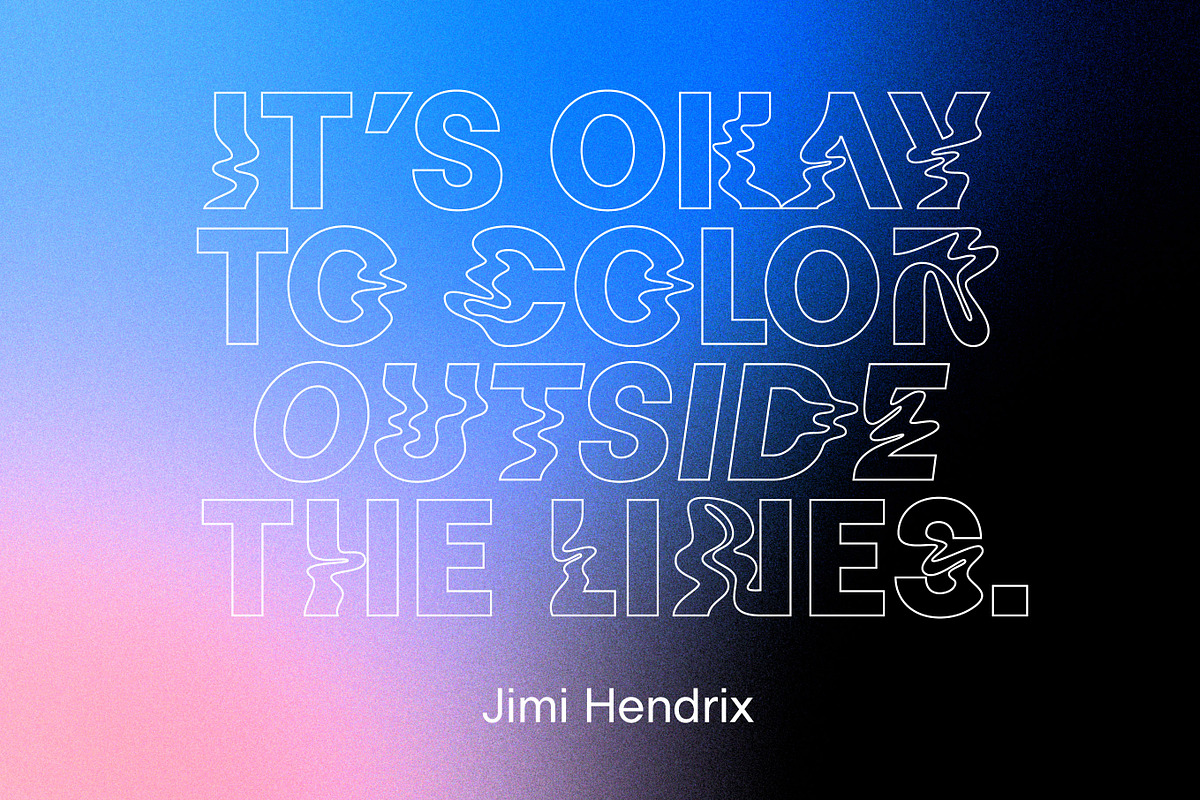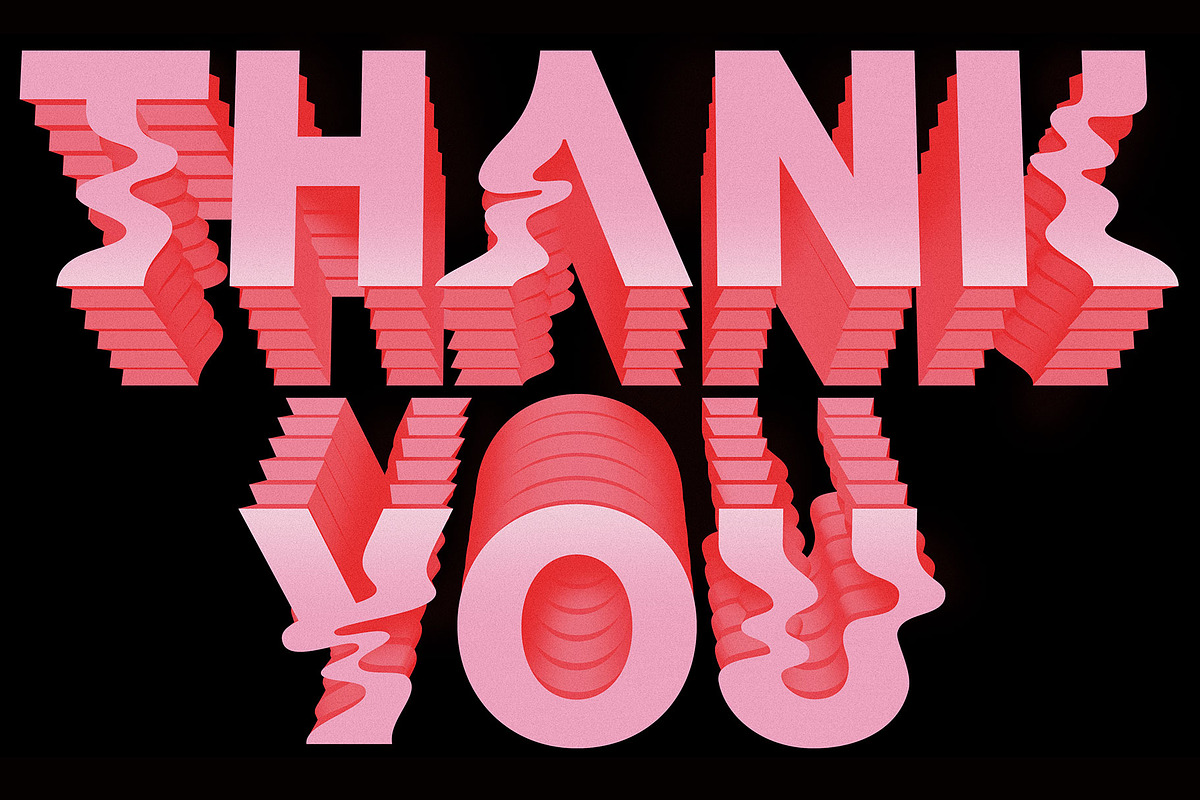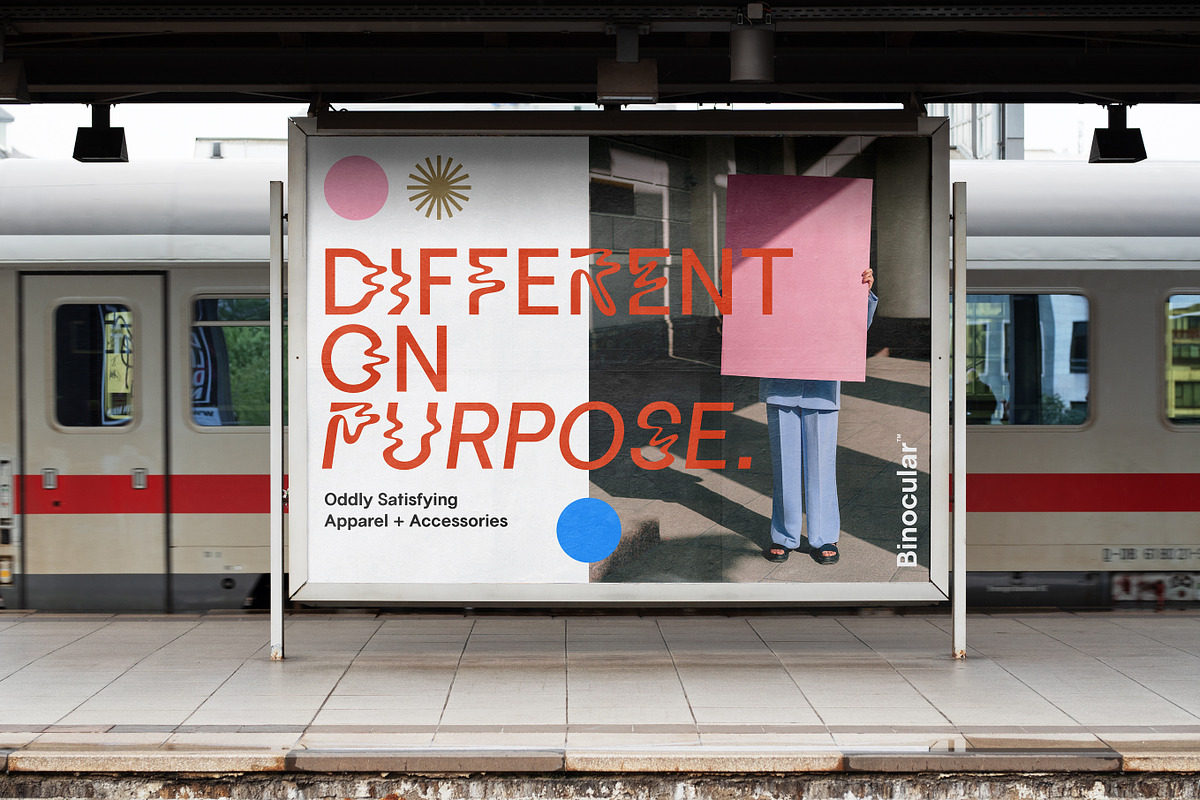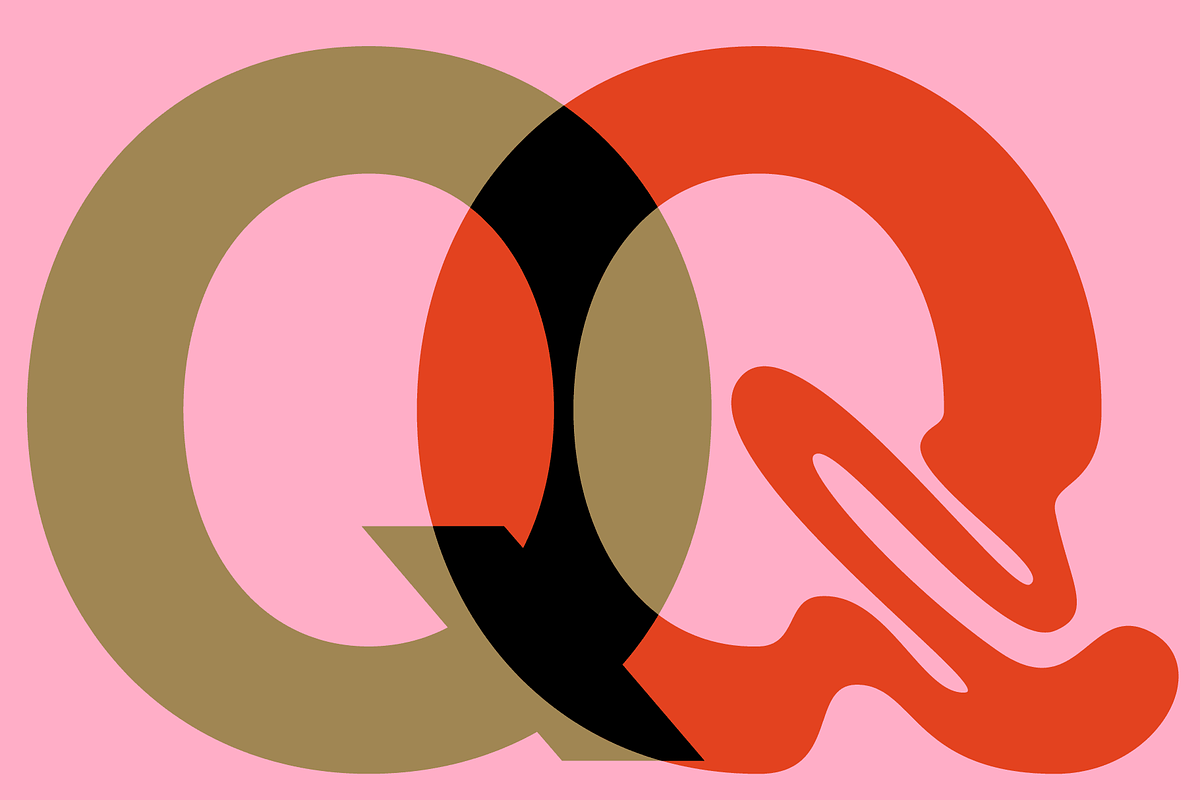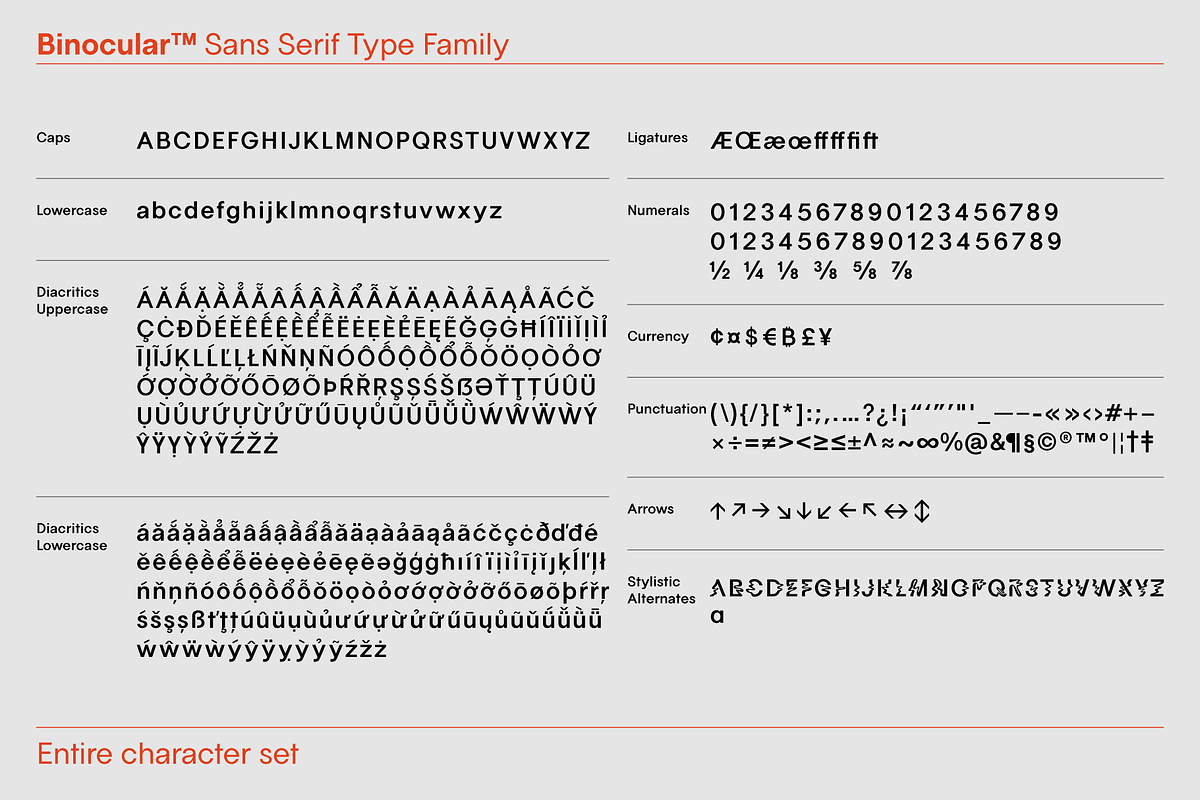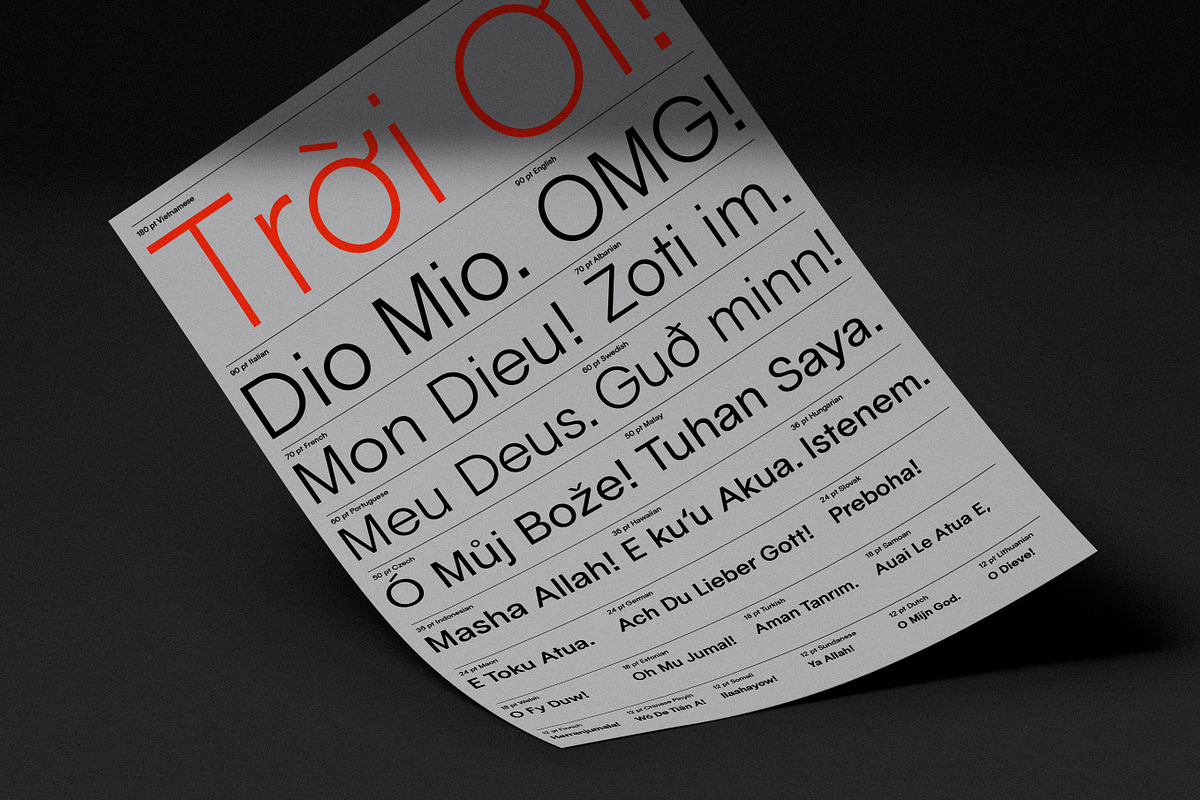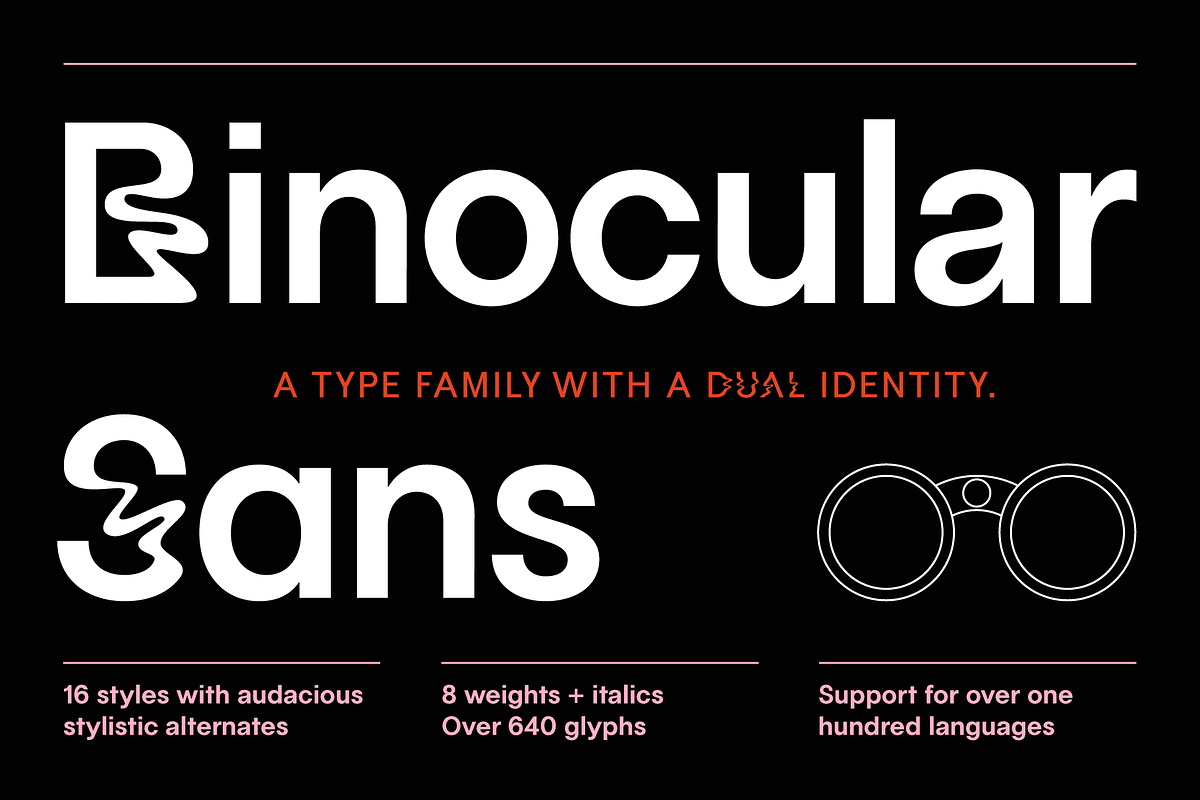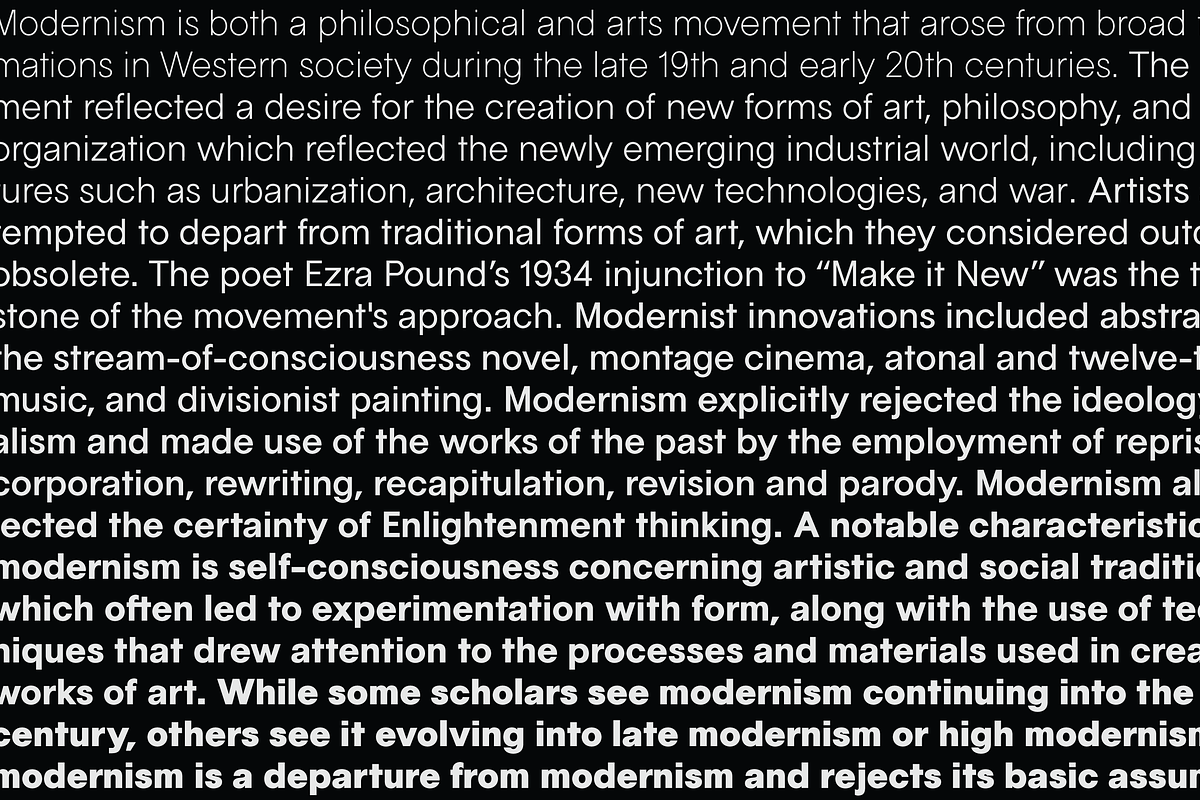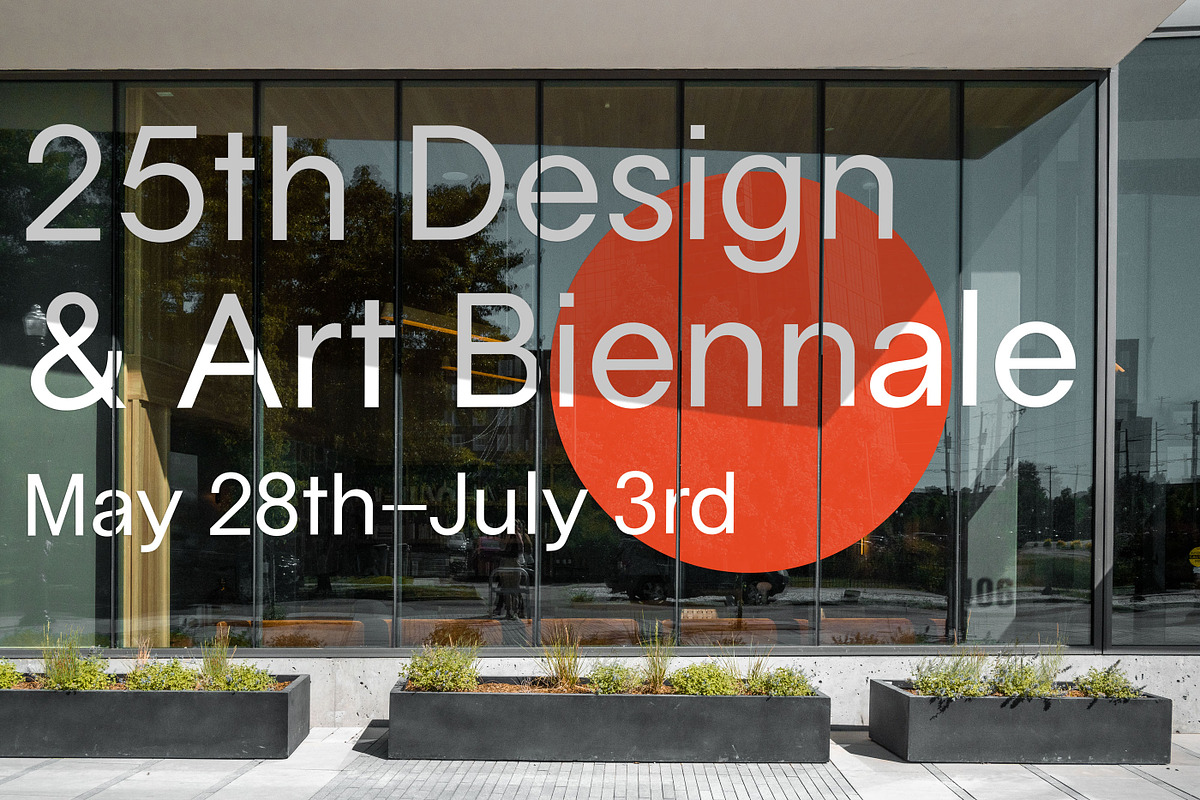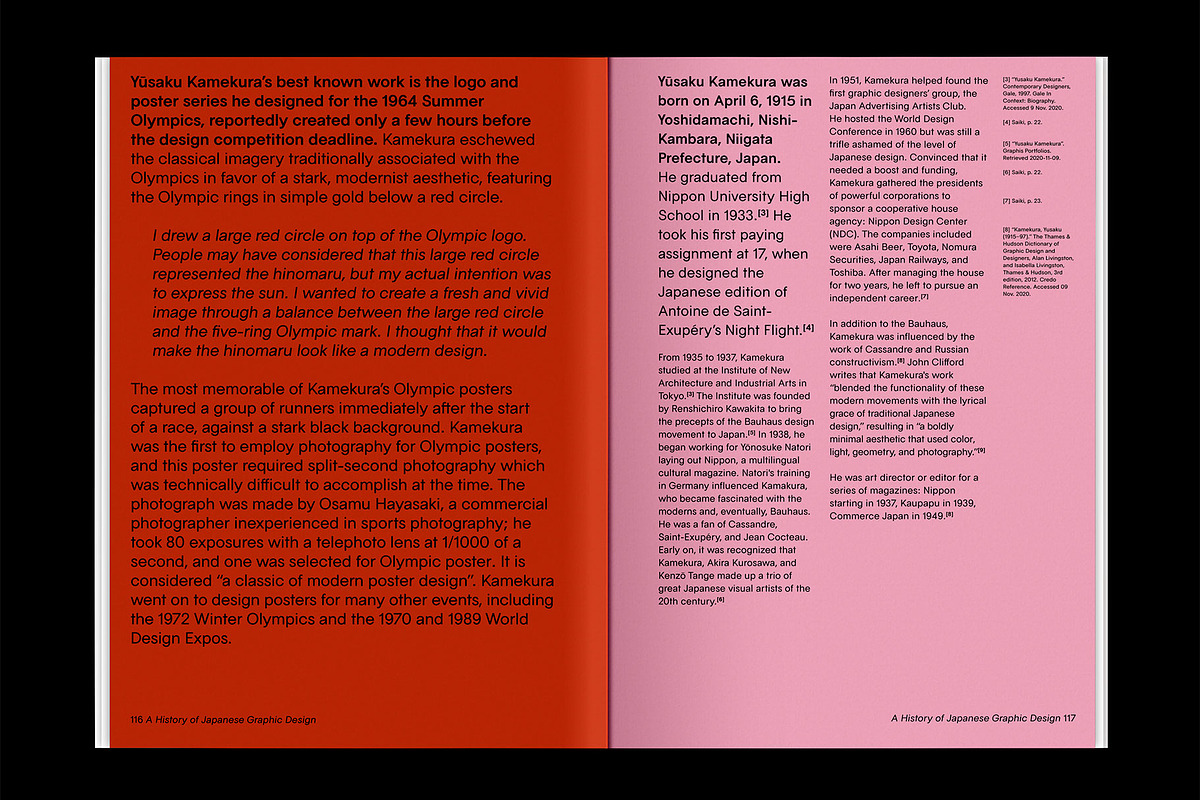
Binocular Sans Font Family
Binocular Sans is a sans serif type family with a dual identity. Inspired by the formal gap between modernist geometric sans serifs and neo-grotesques, as well as a bit of post-modernist subversion, it celebrates the individuality and idiosyncrasy that results from hybridization and cross-cultural identity. An ode to the nonconformist.
Perfect for a wide range of applications from eye-catching headlines, to timeless logotypes, to authoritative wayfinding. Its tall x-height and well-optimized spacing allow for excellent usage in subheaders as well as both short- and long-form text.
Excellent for both text and display usage
16 styles including eight weights + corresponding italics
26 highly expressive stylistic alternates
Over 640 glyphs with support for over 100 languages
OpenType features, including standard ligatures and contextual alternates
Binocular literally means “adapted for or using both eyes”. As the world grows ever more integrated, we need to learn to see it through more than just one lens.